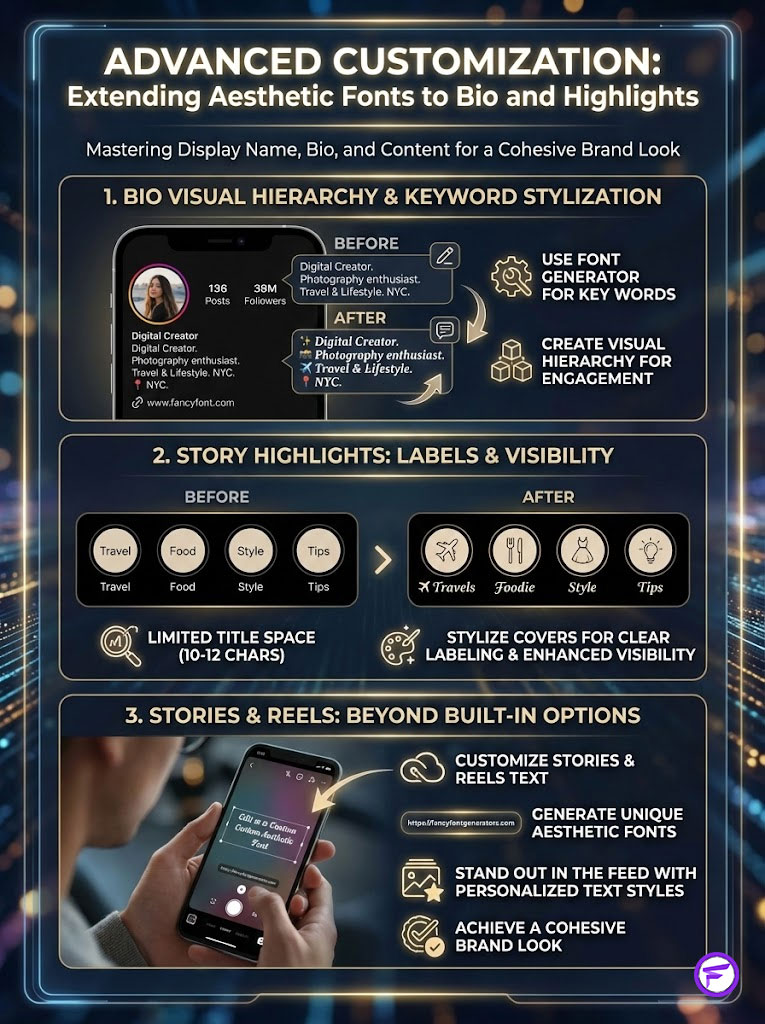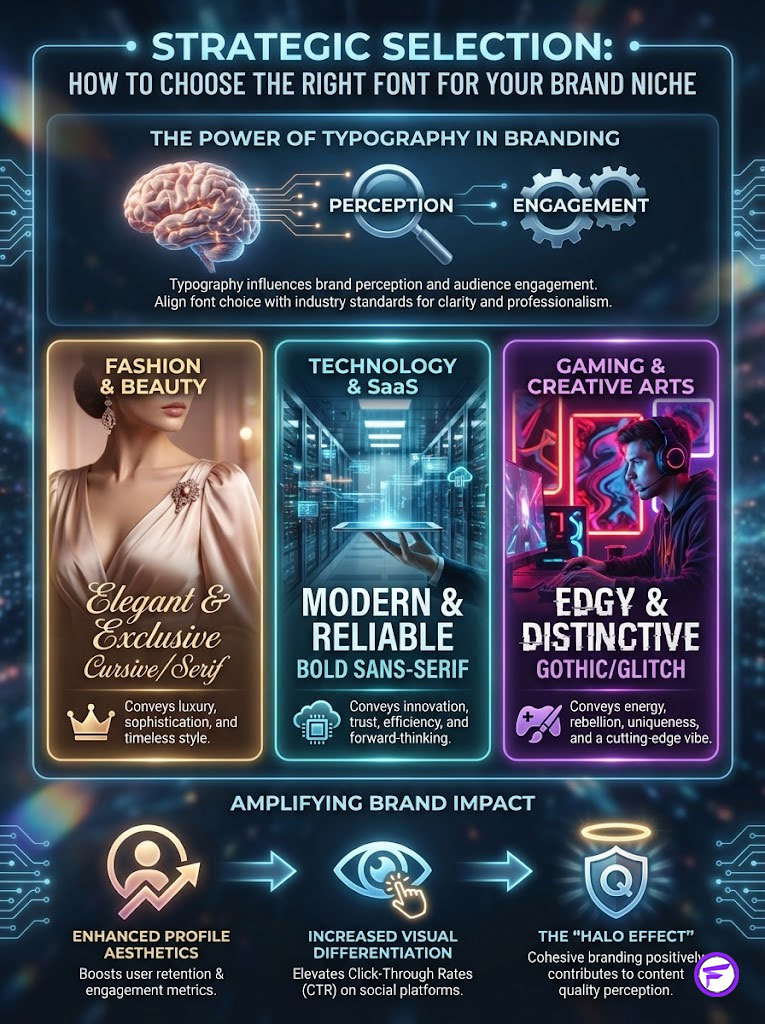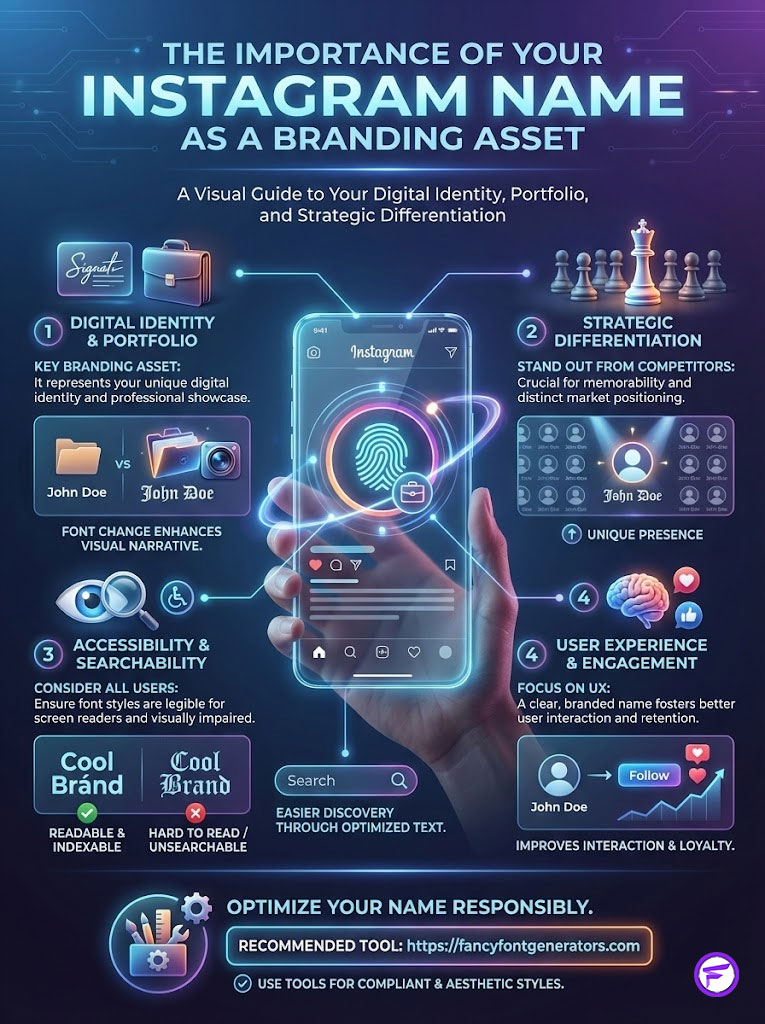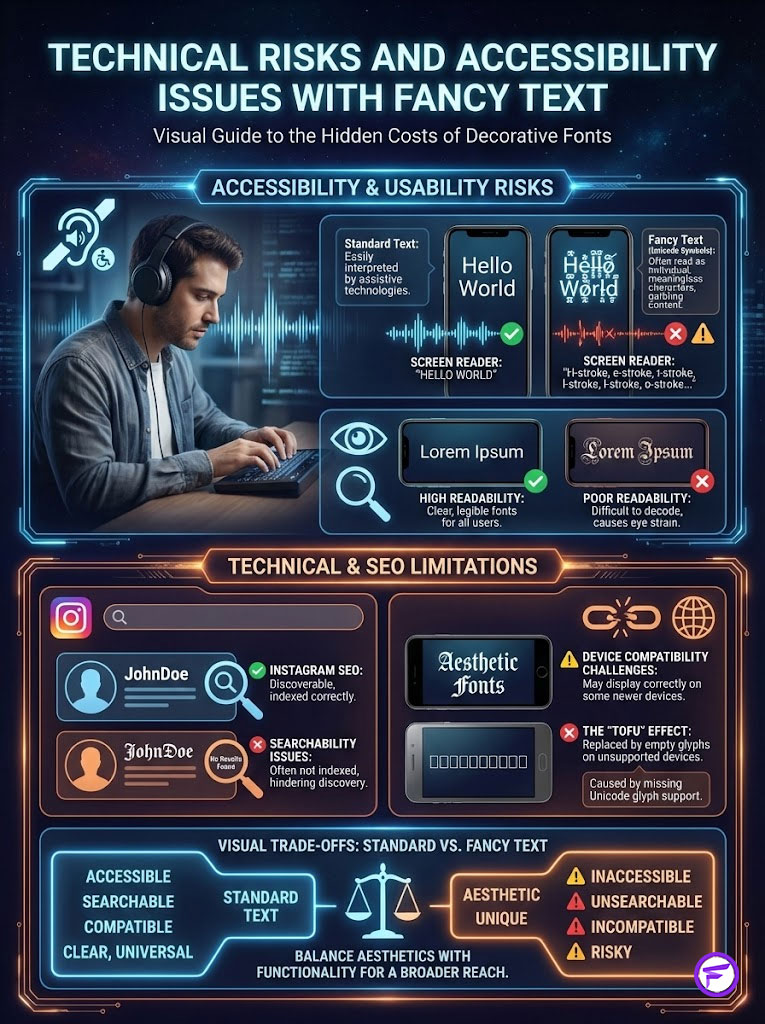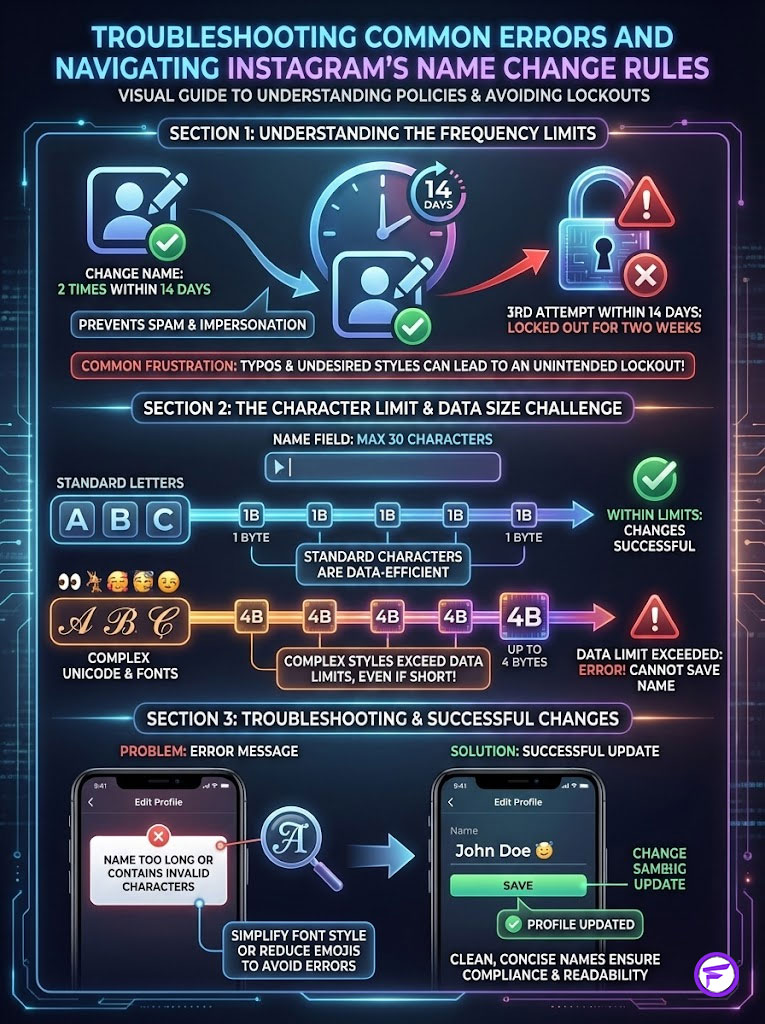
How to Change Your Instagram Display Name Font (Step-by-Step)
Your Instagram profile acts as your digital handshake in the modern era. When a potential follower, brand partner, or customer lands on your page, they make a split-second decision about your identity. While your photos and bio do the heavy lifting, the actual text of your name often gets overlooked. Most users stick to the default system font which blends into the noise of millions of other accounts. This uniformity creates a missed opportunity for branding and visual distinction.
By learning how to change instagram name font, you can disrupt the visual pattern of a userโ€™s feed. It signals creativity. It signals attention to detail. It differentiates a casual user from a curated brand experience. However, Instagram does not make this process intuitive. The app does not offer a dropdown menu for fonts, nor can you simply select “Bold” or “Italic” from the settings menu. To achieve this aesthetic, you need to understand the mechanism of copy and paste fonts using specialized external tools.
Infographic on changing Instagram name font for branding, featuring steps and tips for better visibility.
This guide is a strategic breakdown of the entire ecosystem of Instagram typography. We will explore the technical “how-to,” the psychological impact of aesthetic fonts for instagram, the critical accessibility risks that most influencers ignore, and the SEO implications of deviating from standard text.
Understanding the Core Concept: How Instagram Fonts and Unicode Actually Work
Before you start pasting symbols into your profile, it is vital to understand the technology behind the text. Many users mistakenly believe they are “hacking” the app or installing a custom font file like they would on a computer. This is incorrect. Understanding the difference between a typeface and a symbol is the first step to mastering instagram display name style.
Infographic explaining Instagram fonts and Unicode, featuring charts, icons, and guidelines for customization.
The Science Behind the Fancy Text: It Is Not Actually a Font
When you see a profile name written in cool fonts for instagram name like ๐•ญ๐–‘๐–†๐–ˆ๐–๐–‘๐–Š๐–™๐–™๐–Š๐–— or ๐’ž๐“Š๐“‡๐“ˆ๐’พ๐“‹โ„ฏ, you are not seeing a different font family like Times New Roman or Arial. You are actually seeing Mathematical Alphanumeric Symbols.
These characters come from the Unicode Consortium. Unicode is the universal standard for text encoding that allows computers to represent text in most of the world’s writing systems. Within this massive library of over 140,000 characters, there are specific sets originally designed for mathematicians, scientists, and linguists to express complex formulas.
For example, a bold text “A” in Unicode is not just the letter “A” with a bold styling attribute applied to it. It is a completely distinct character code. When you use an instagram name font generator, the tool maps your standard keyboard input to these specific mathematical symbols. This is why you can use a unicode text converter to copy these characters and paste them into Instagram. The app recognizes them as valid text symbols rather than rejecting them as unsupported files.
Distinguishing Between Instagram Display Name and Username Handle
It is vital to distinguish between your Username and your Display Name when planning your instagram profile customization. Confusing these two is a common amateur mistake that can hinder your discoverability.
The Username (@handle):
This is your unique identifier on the platform. It appears at the very top of your profile, in your URL, and is used to tag you in comments. Instagram has strict rules for handles. You can only use standard letters, numbers, periods, and underscores. You cannot change instagram name font for your handle because the database requires standard ASCII characters for login and indexing purposes.
The Display Name:
This appears in bold text right under your profile picture. This field is much more flexible and creative. It allows for emojis, special characters, spacing, and fancy text for instagram name. This is the prime real estate where you can apply the strategies in this guide to boost your curb appeal.
For instance, consider a marketing consultant named Sarah.
• Username: @sarah_marketing_nyc (Standard text, SEO focused, easy to type).
• Display Name: ๐’๐š๐ซ๐š๐ก | ๐ƒ๐ข๐ ๐ข๐ญ๐š๐ฅ ๐’๐ญ๐ซ๐š๐ญ๐ž๐ ๐ข๐ฌ๐ญ (Stylized text, Branding focused, visual hierarchy).
By customizing the display name, Sarah separates her brand aesthetic from the functional requirements of her login handle.